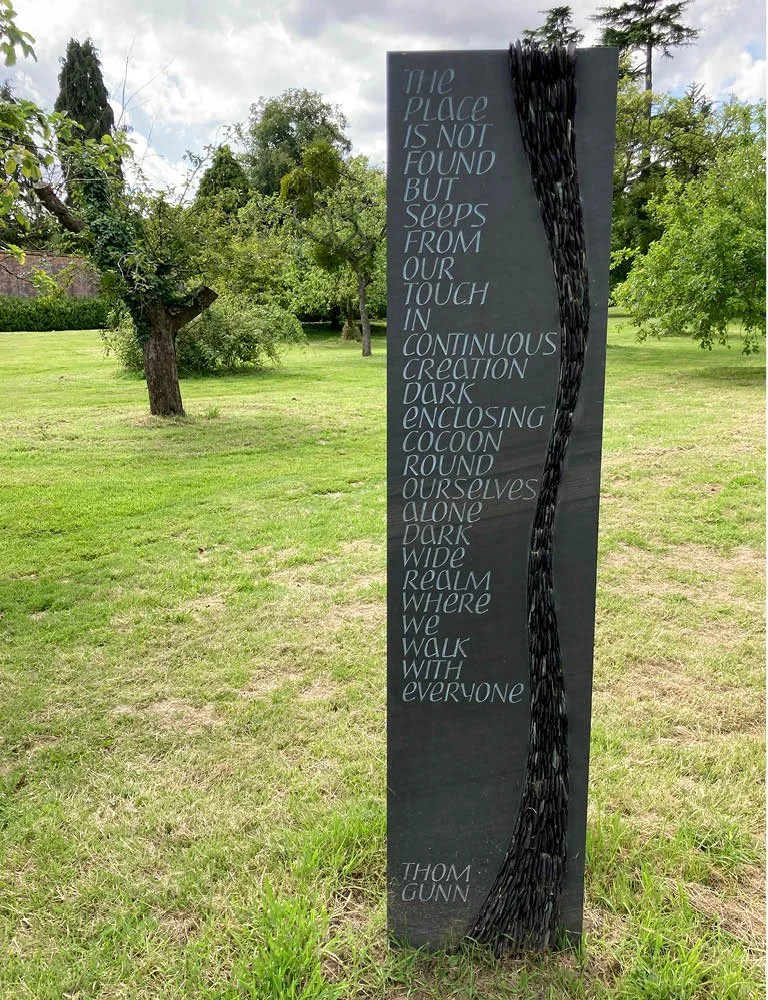
Touch by James Salisbury (slate river created by Tom Stogdon)
Cumbrian Black Slate, with inserts of Penryn Heather Slate
The text is taken from Thom Gunn’s poem ‘Touch’. Gunn was a major English poet in the 1960s and 70s, experimenting with improvised forms of writing
“I was struck by these lines for their simplicity and feeling of shared isolation. I wanted the tone of the slate to echo the colour of the night, with the slate river of heather-red chippings alluding to the hidden warmth found within.”